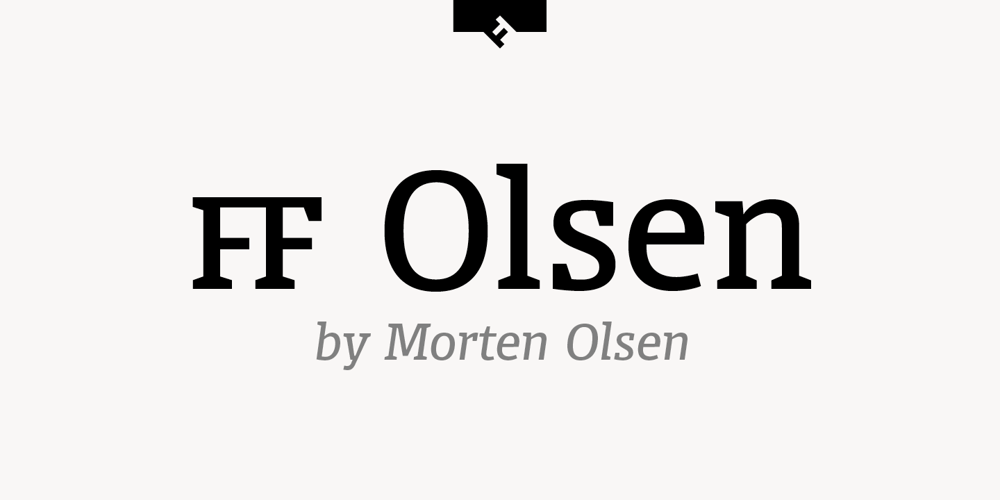
FF Olsen Font Family was designed by Morten Rostgaard Olsen and published by FontFont. FF Olsen contains 6 styles and family package options. Danish type designer Morten Olsen created this serif and slab FontFont in 2001. The family has 6 weights, ranging from Light to Bold (including italics) and is ideally suited for advertising and packaging, book text, editorial and publishing, logo, branding and creative industries, poster and billboards as well as web and screen design. FF Olsen provides advanced typographical support with features such as ligatures, small capitals, alternate characters, case-sensitive forms, fractions, and super- and subscript characters. It comes with a complete range of figure set options – oldstyle and lining figures, each in tabular and proportional widths.